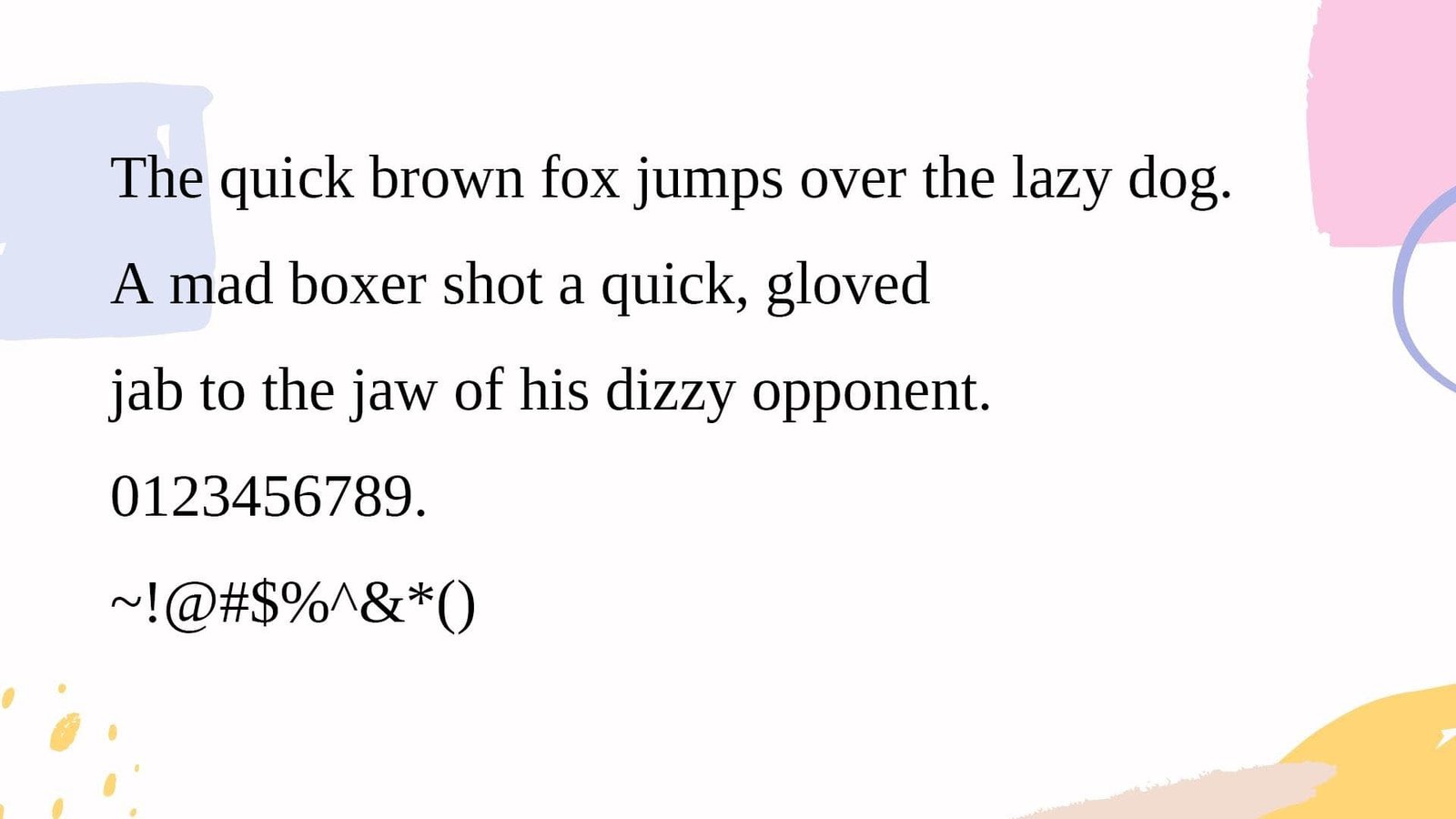
Tinos Font family is a category of Serif type. This typeface was originally designed by the designer Steve Matteson. This font style is designed specially to make pair with Times New Roman font style.
This texture design contains a neat and readable texture.
This textured style improves the readability on screen. This font style has come with four families of its own which are Regular, Italic, Bold, and Bold Italic and each font type contains 2228 number characters and 2583 glyphs. So, it can easily use on many designing platforms.